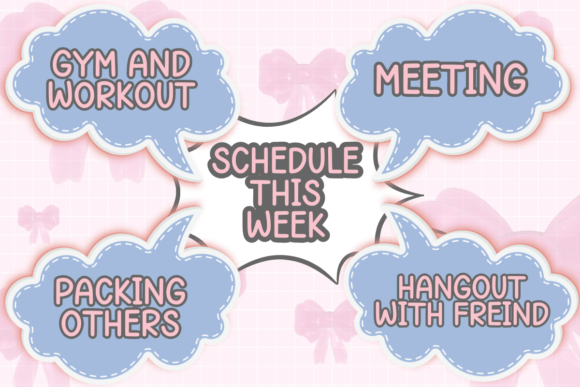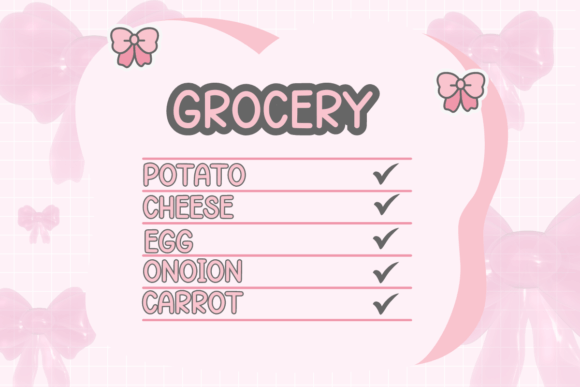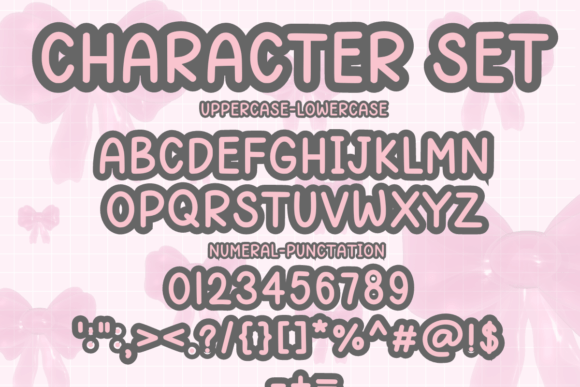
Introduction to Small Think Font
Have you ever stared at a blank page, waiting for inspiration to strike? For many designers, this is a familiar scenario. But what if that spark was waiting for the perfect font to ignite your creativity? Enter the Small Think Font, a charming handwritten font that’s sure to add a touch of whimsy to your next design project.
With its natural strokes and playful touches, the Small Think Font is the perfect addition to any designer’s toolkit. Whether you’re working on a high-quality design resource or a creative project from scratch, this font has the potential to elevate your work and leave a lasting impression. And the best part? It’s available for free download, making it an accessible and valuable resource for designers of all levels.
Key Features of Small Think Font
- Small Think Font is a unique, hand-drawn design with a minimalist aesthetic.
- Includes a wide range of characters, including uppercase and lowercase letters, numbers, and punctuation.
Honest Review: Small Think Font
I recently stumbled upon the Small Think Font, a design resource that caught my eye. As a designer, I’m always on the lookout for high-quality fonts to elevate my creative projects.
One of the standout features of the Small Think Font is its unique aesthetic, which is perfect for those who want a font that’s a little different from the usual suspects. The font’s clean lines and minimalist design make it a great choice for anyone looking to add a touch of sophistication to their design.
- ✨ Unique aesthetic that sets it apart from other fonts
- ✨ Great for designs with a transparent background, allowing the font to take center stage
- ⚠️ Limited font sizes available, which may not be ideal for larger-scale designs
- ⚠️ Not suitable for designs that require bold, attention-grabbing text
Overall, I’d say the Small Think Font is a solid choice for designers looking for a high-quality, unique font to add some flair to their creative projects. While it may have some limitations, its strengths make it a worthwhile addition to any design resource library.
Tips for Getting the Most Out of Small Think Font
Experiment with different font sizes, colors, and styles to find the perfect combination for your design. Use the font in conjunction with other design elements to create a cohesive look.
Common Use Cases for Small Think Font
Use Small Think Font for a variety of creative projects, including logos, brochures, business cards, and website headers. The font’s unique style makes it perfect for branding and marketing materials.
Yes, the Small Think Font has a transparent background, making it ideal for creative projects that require layered designs. The font also supports advanced features such as ligatures and contextual alternates.
Q: Is the Small Think Font a high-quality font suitable for professional design projects?
Yes, the Small Think Font is a high-quality design resource that is perfect for professional design projects. Its clean and modern design makes it suitable for a wide range of creative applications, from logos and branding to editorial and advertising design.